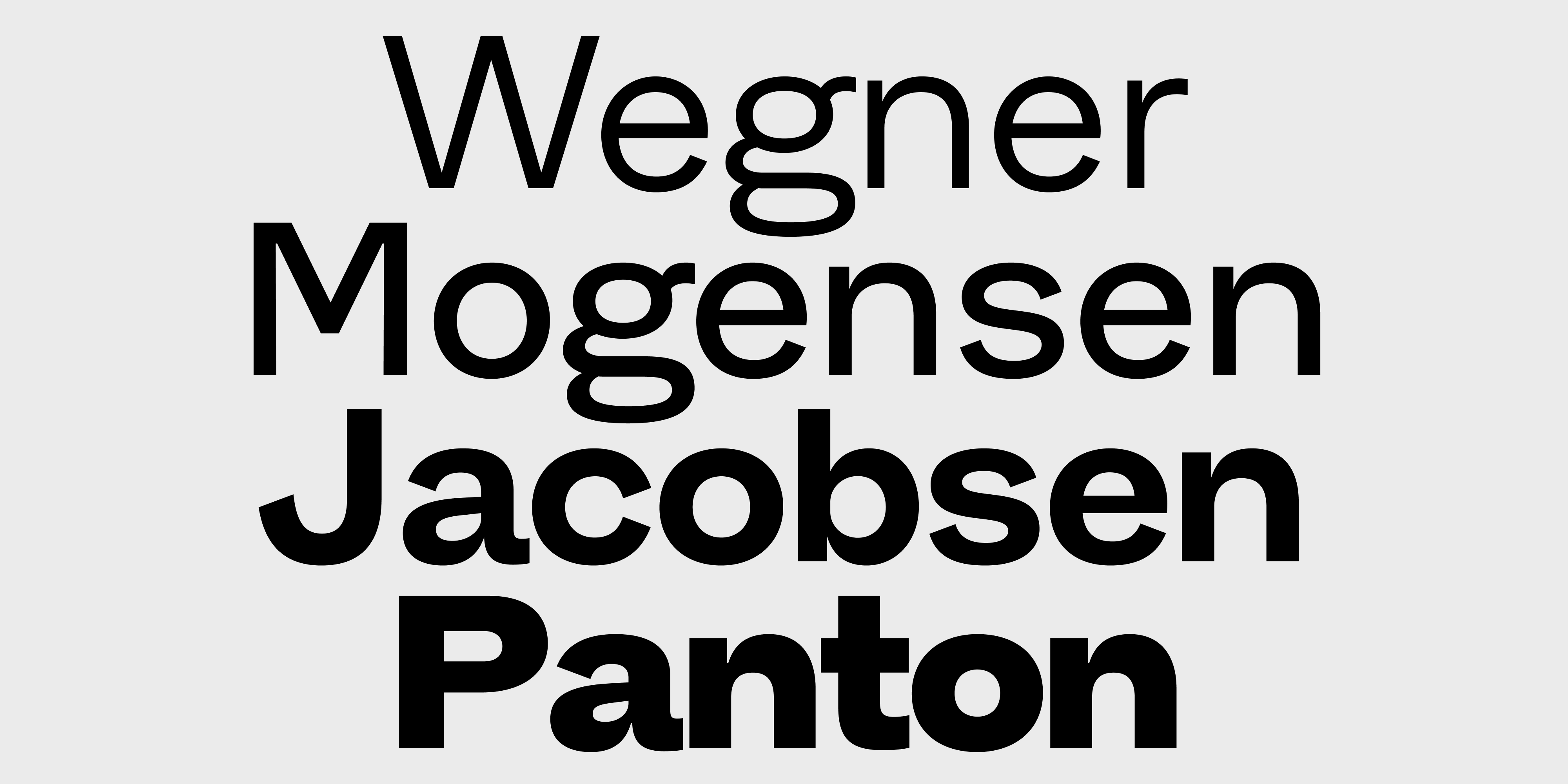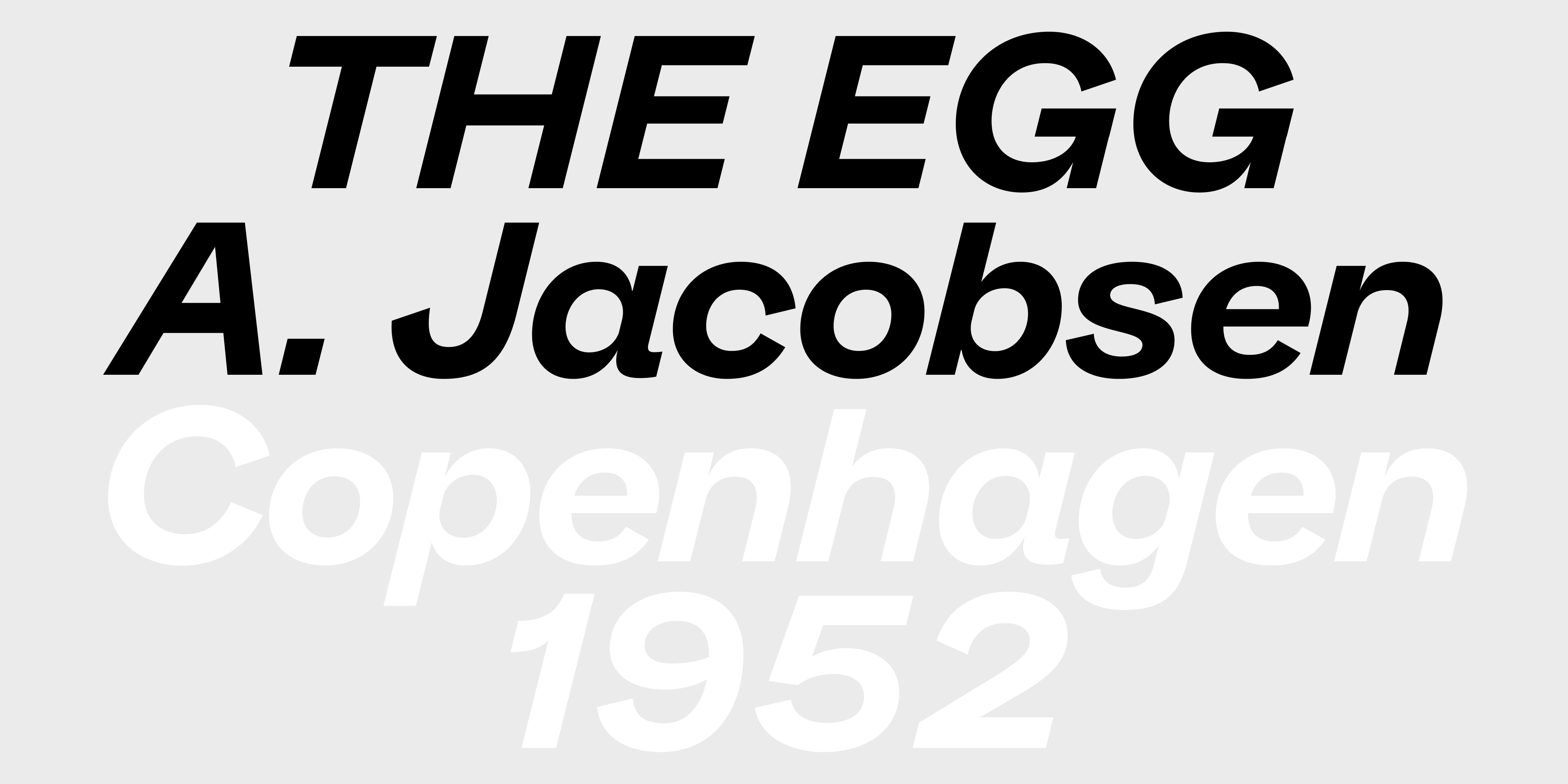
Hansen Grotesque enjoys taking up space. Although modern, it also reflects metal grotesques with a more loose weight distribution towards the heavier. With its slightly wider body, it is enjoyable to read in long bodies of text while still providing character in the larger sizes. Of note is the italic styles which spark a joyful play between slanted and italic forms at a comfortable 14° angle – making them a perfect companion to the uprights.